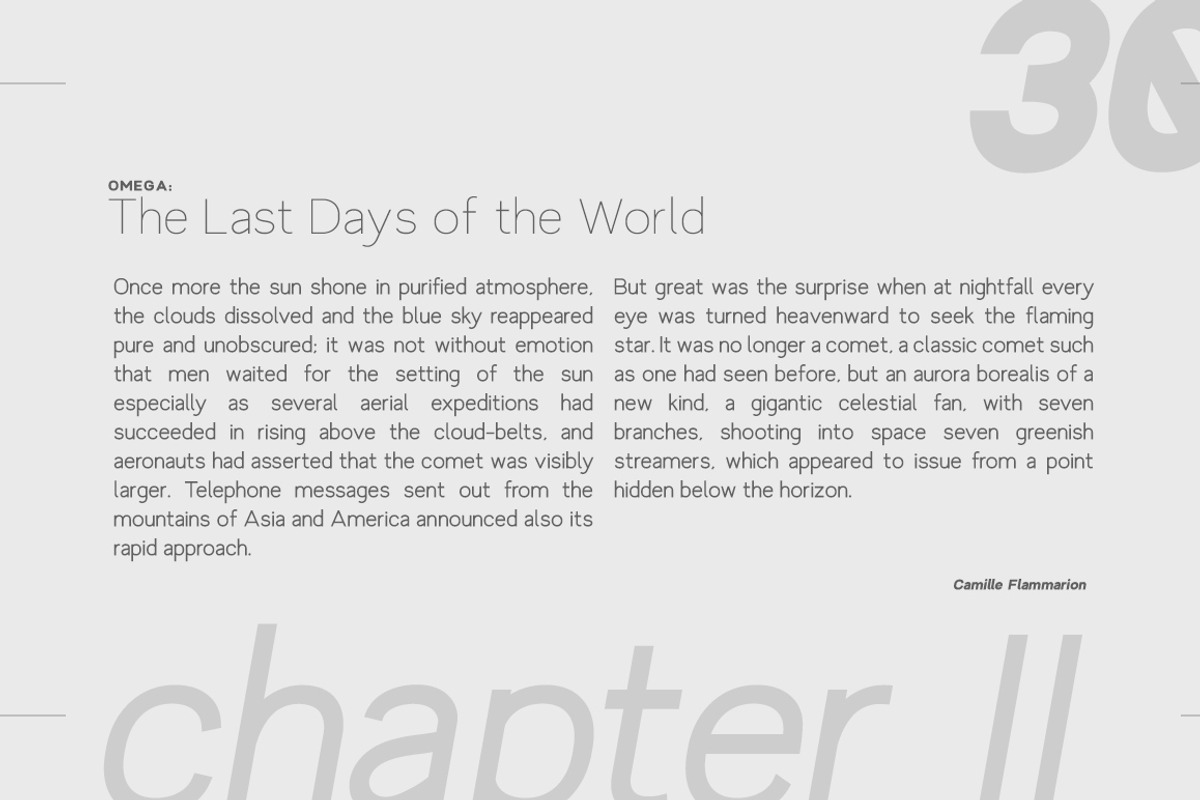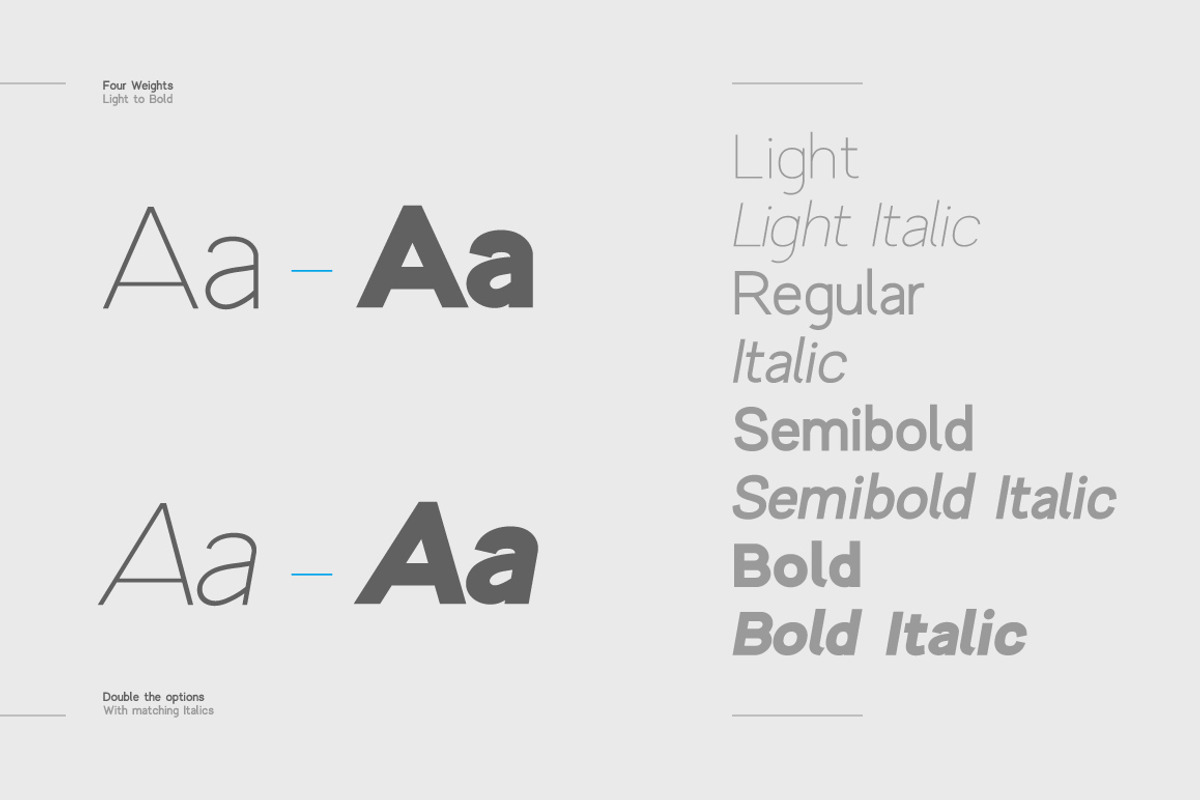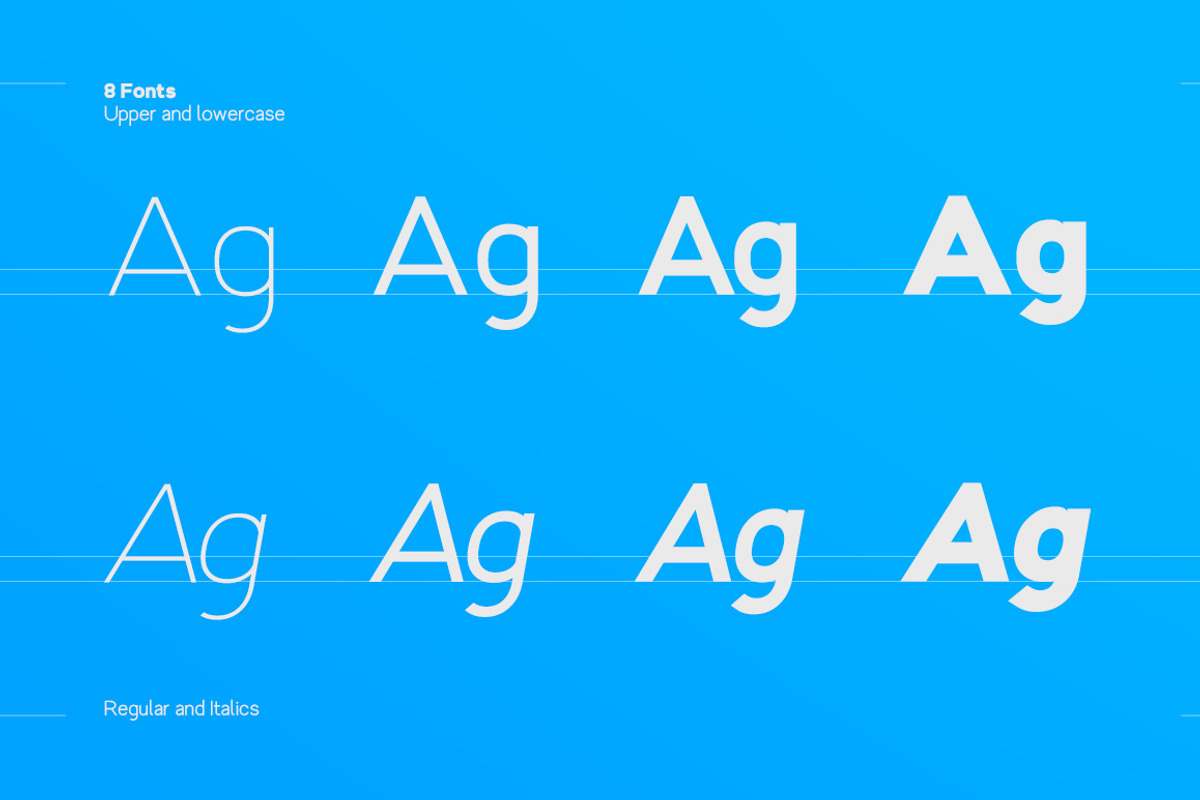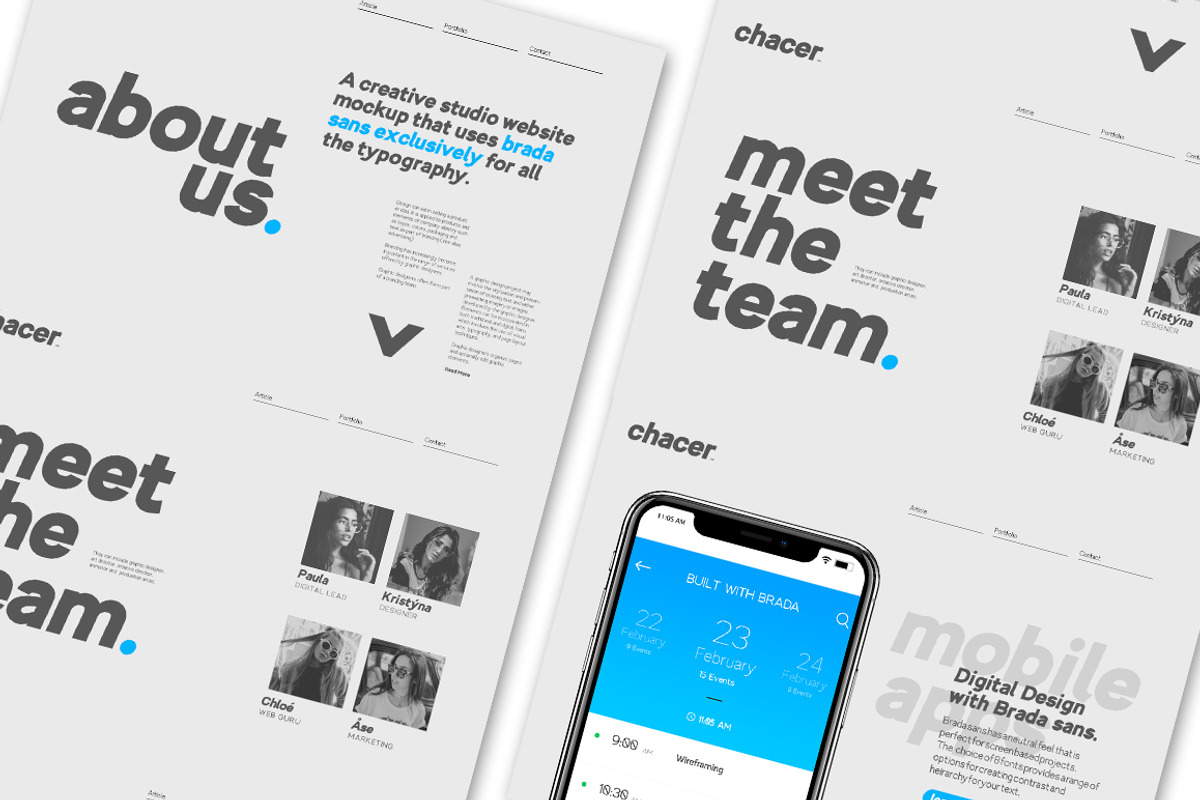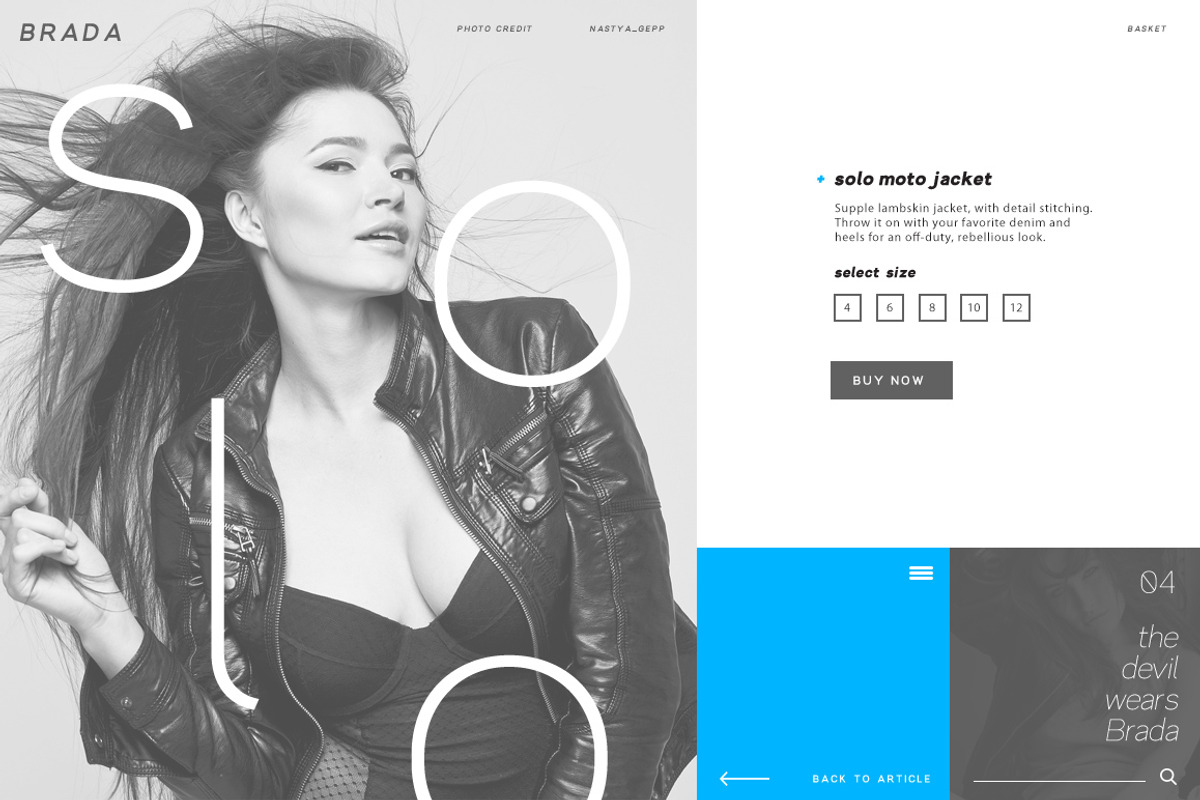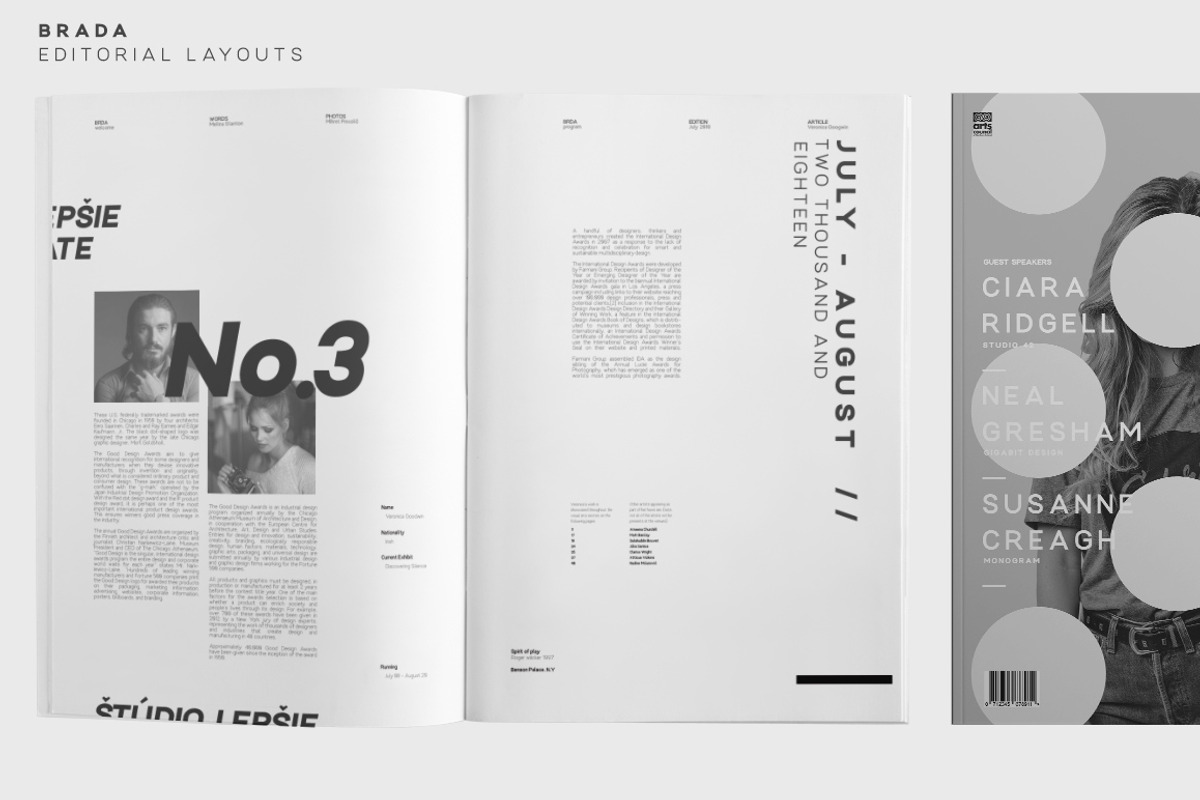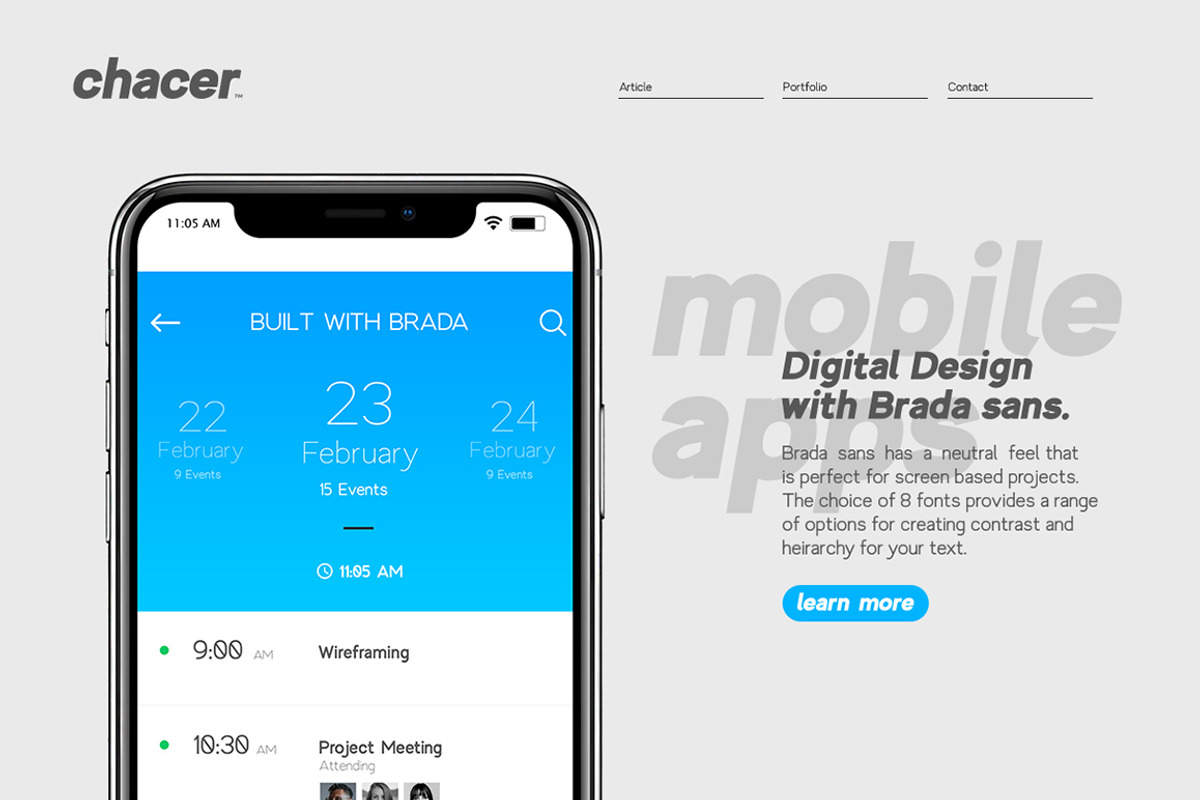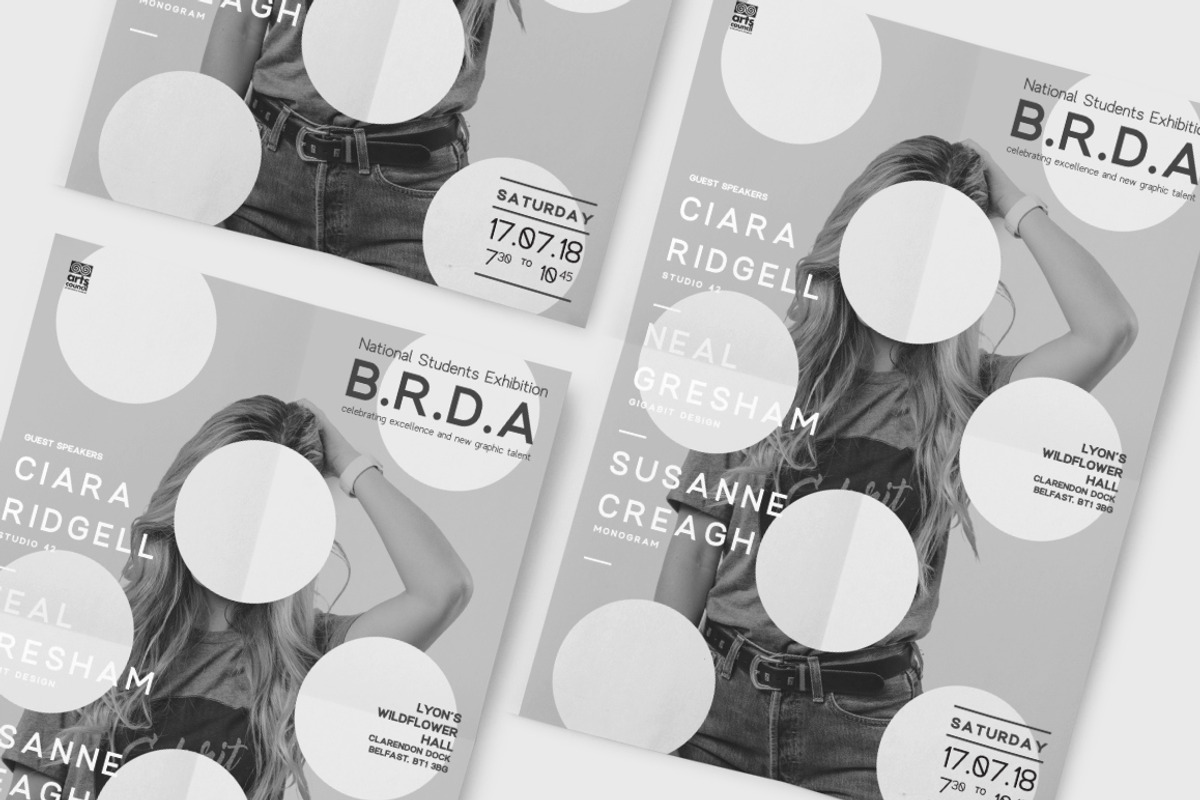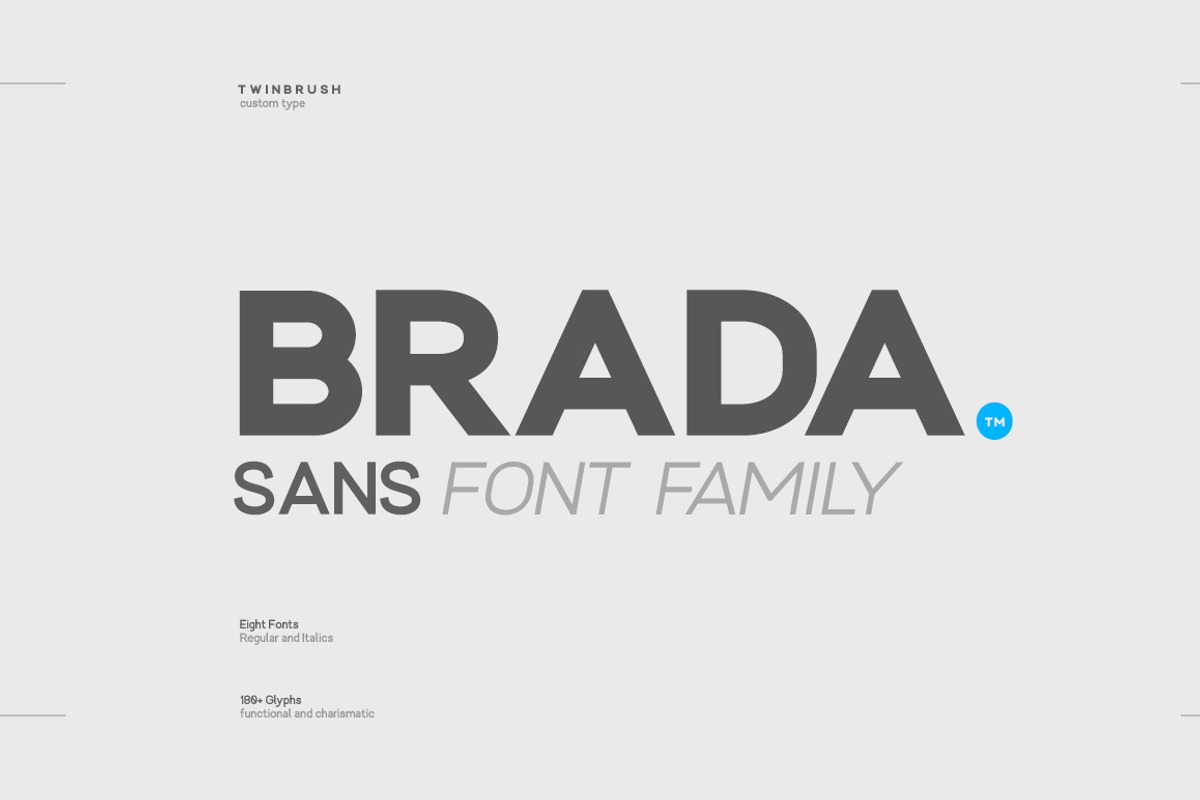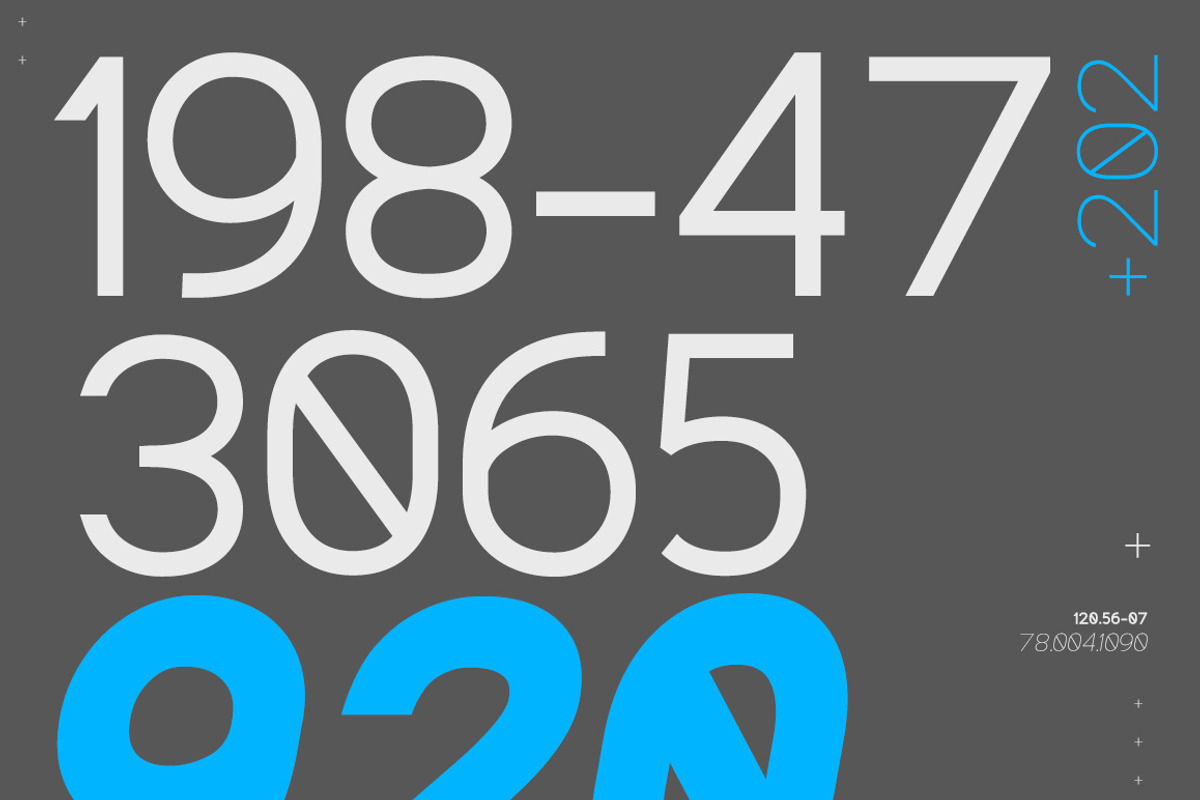
Brada sans - A designers font family
BRADA SANS. Versatile, contemporary and personable
Brada sans is a family of eight fonts, created as an answer to many tasks that I face daily as a designer. Robust, clean and modern it is ideal for corporate documents and layouts, but with its clear legibility and the subtle, softer personality of the lowercase forms it is built for branding and logo design and perfectly at home when used in longer runs of body copy in print, web and mobile app projects.
MULTI-LANGUAGE SUPPORT
With over 180 characters, Brada sans supports multiple languages, including; Afrikaans, Albanian, Danish, Dutch, English, Estonian, Finnish, French, German, Irish, Italian, Norwegian, Polish, Portuguese, Slovak, Slovenian, Spanish, Swedish, Zulu.
- A versatile and Powerful family of eight fonts:
- Brada Light
- Brada Light italic
- Brada Regular
- Brada Italic
- Brada Semibold
- Brada Semibold Italic
- Brada Bold
- Brada Bold Italic
ROBUST AND VERSATILE
Brada sans is a powerful and thorough typeface, great for use in logo design, book, magazine and corporate document layouts, blogs, web design and mobile app development. The combination of weights provide a ready supply of creative options for whatever task you have.